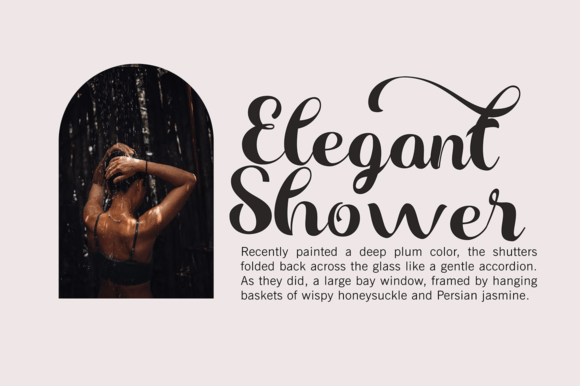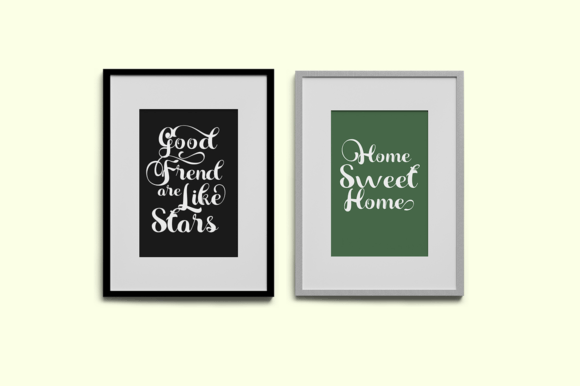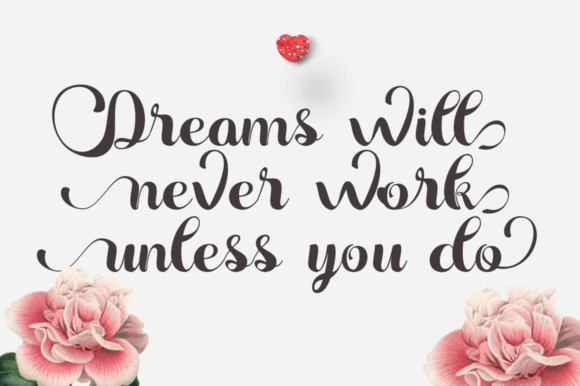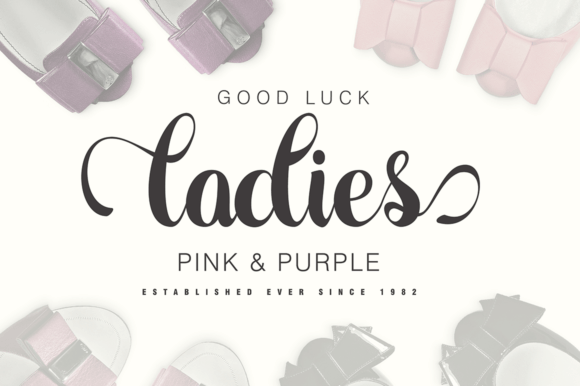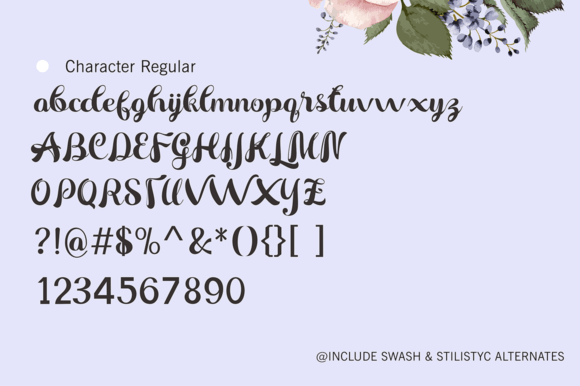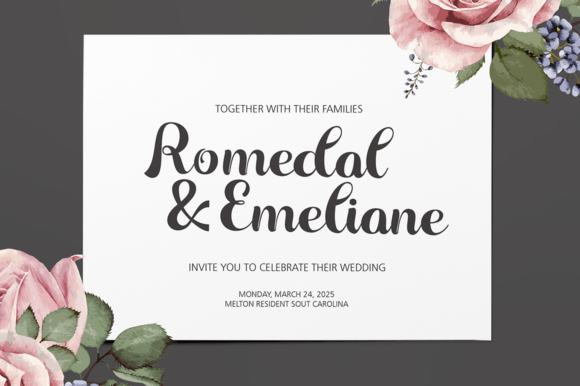
Linsela Script Font
About Linsela Script Font
Linsela Script is an original handwritten font with an updated hand calligraphy model, with special glyphs that have been given a combination of fantasy and handwritten ink. This font will look beautiful on wedding designs, branding materials, blog titles, quotes and invitations, business cards, and more.